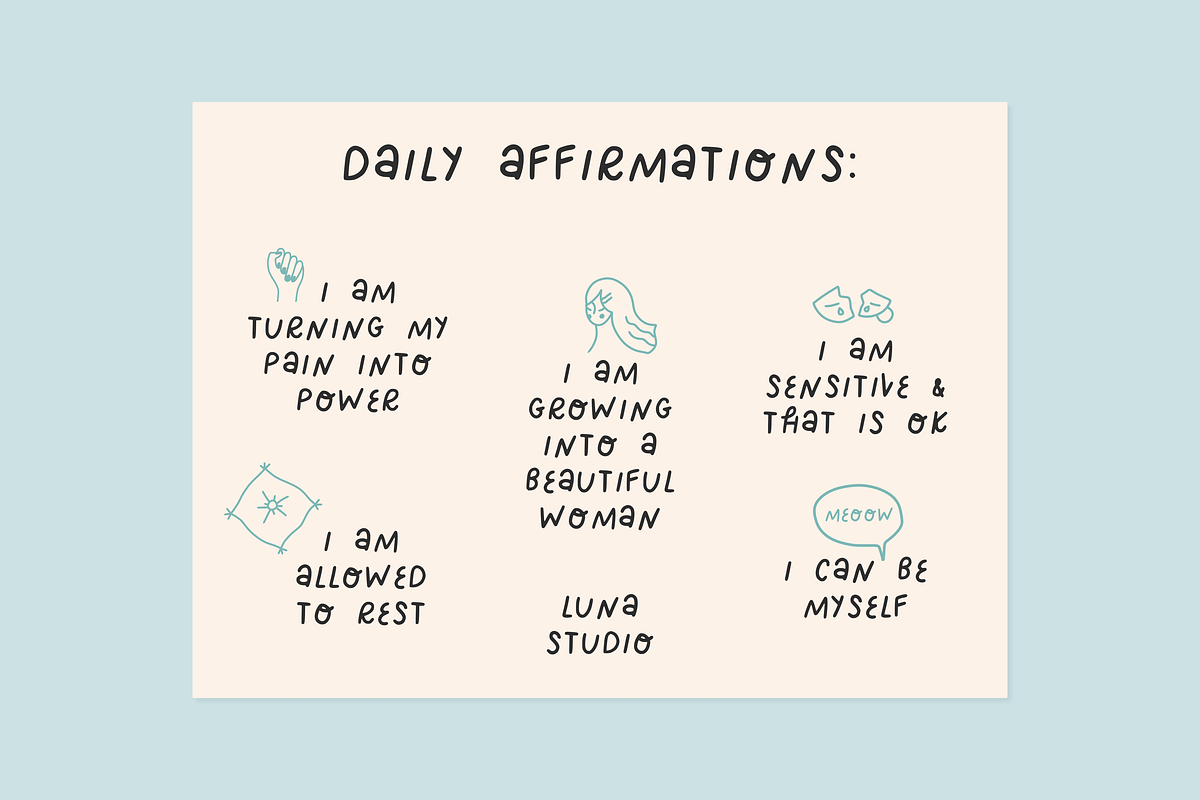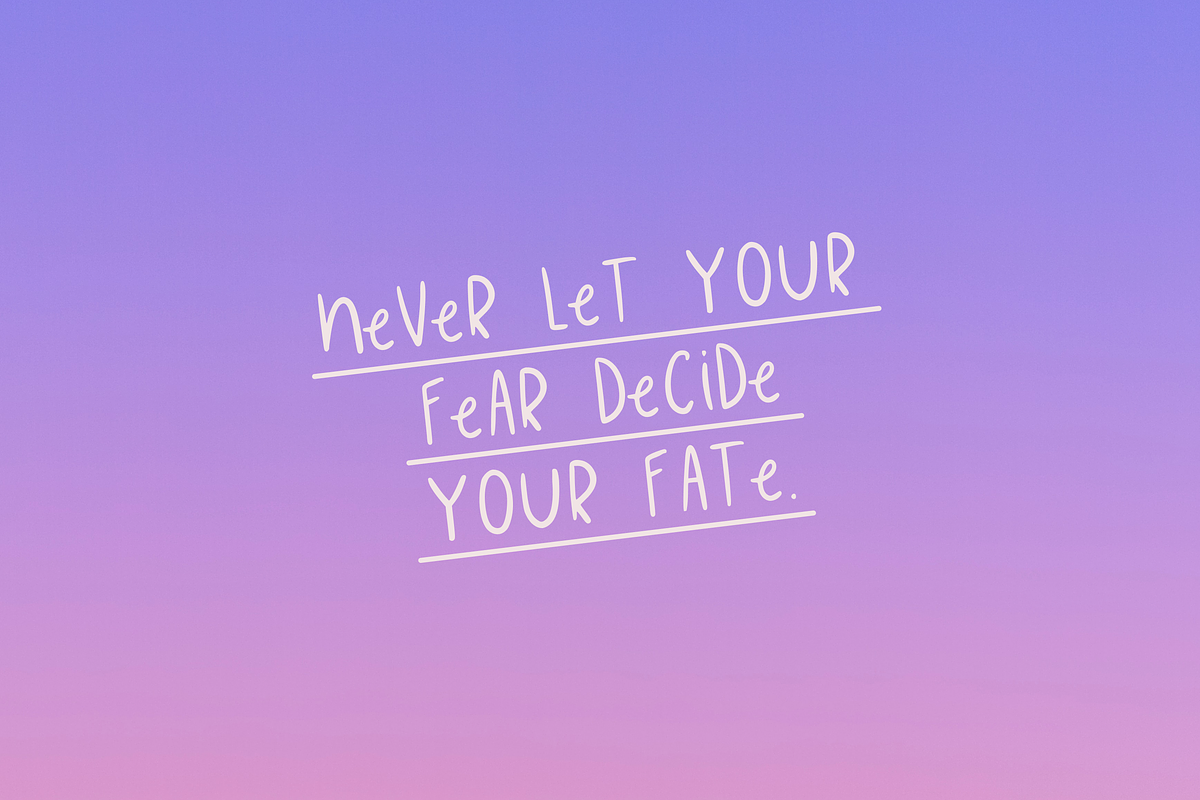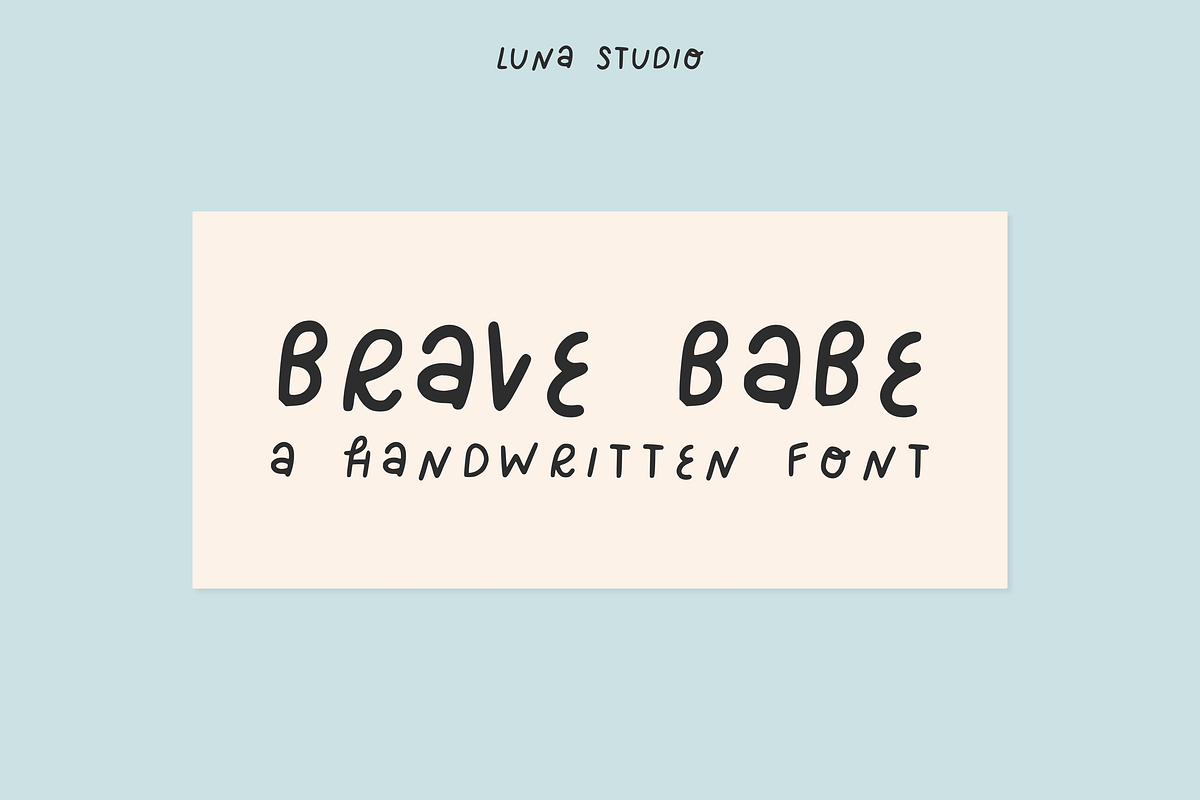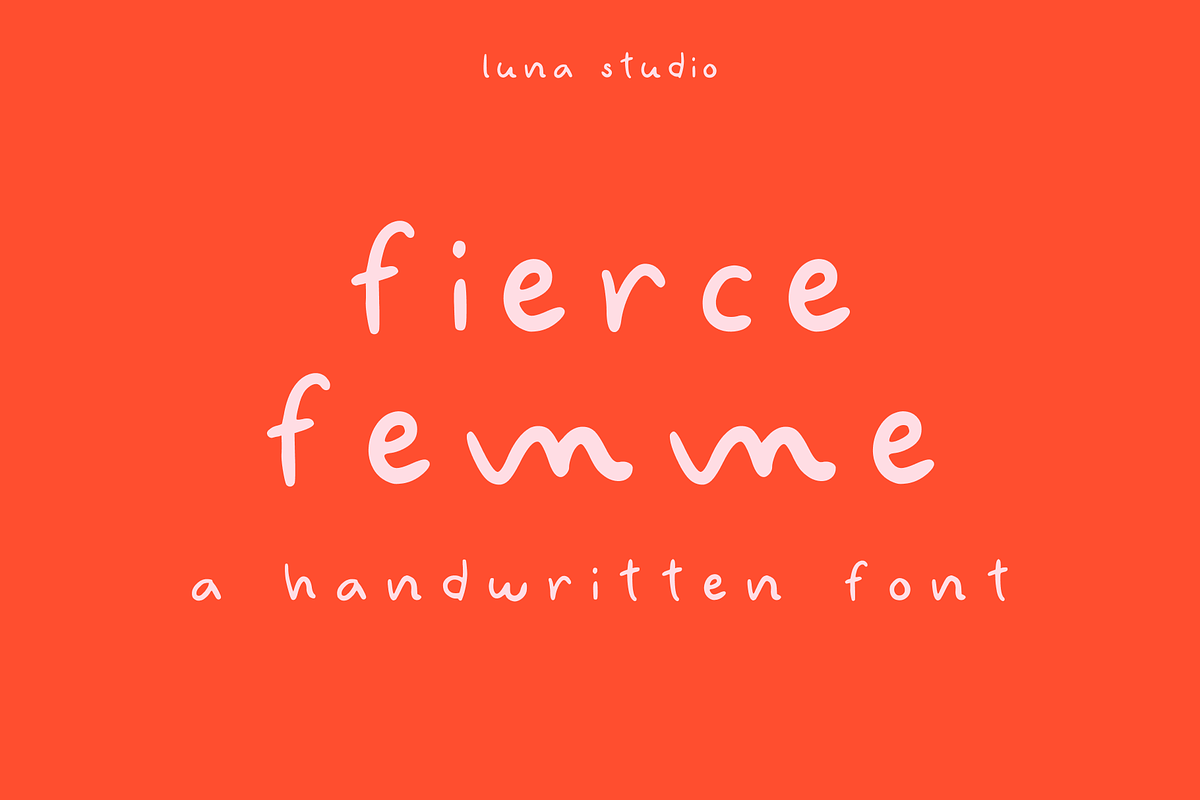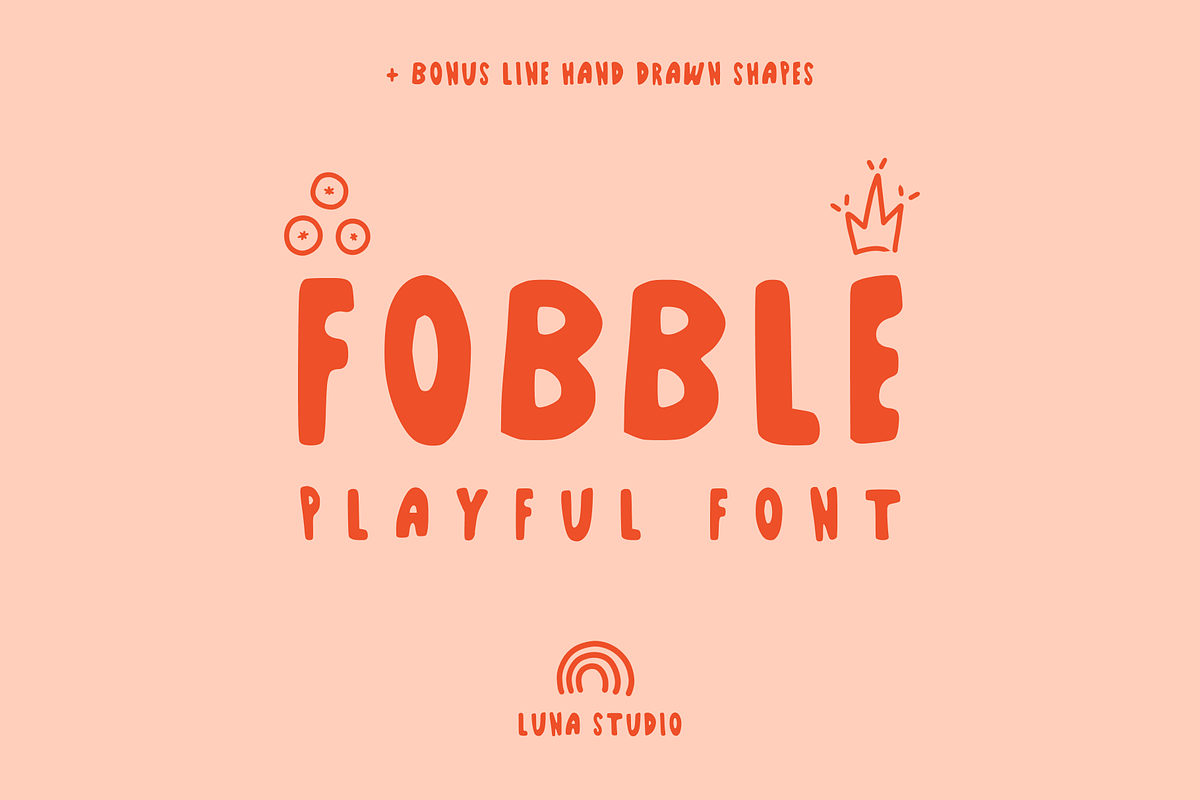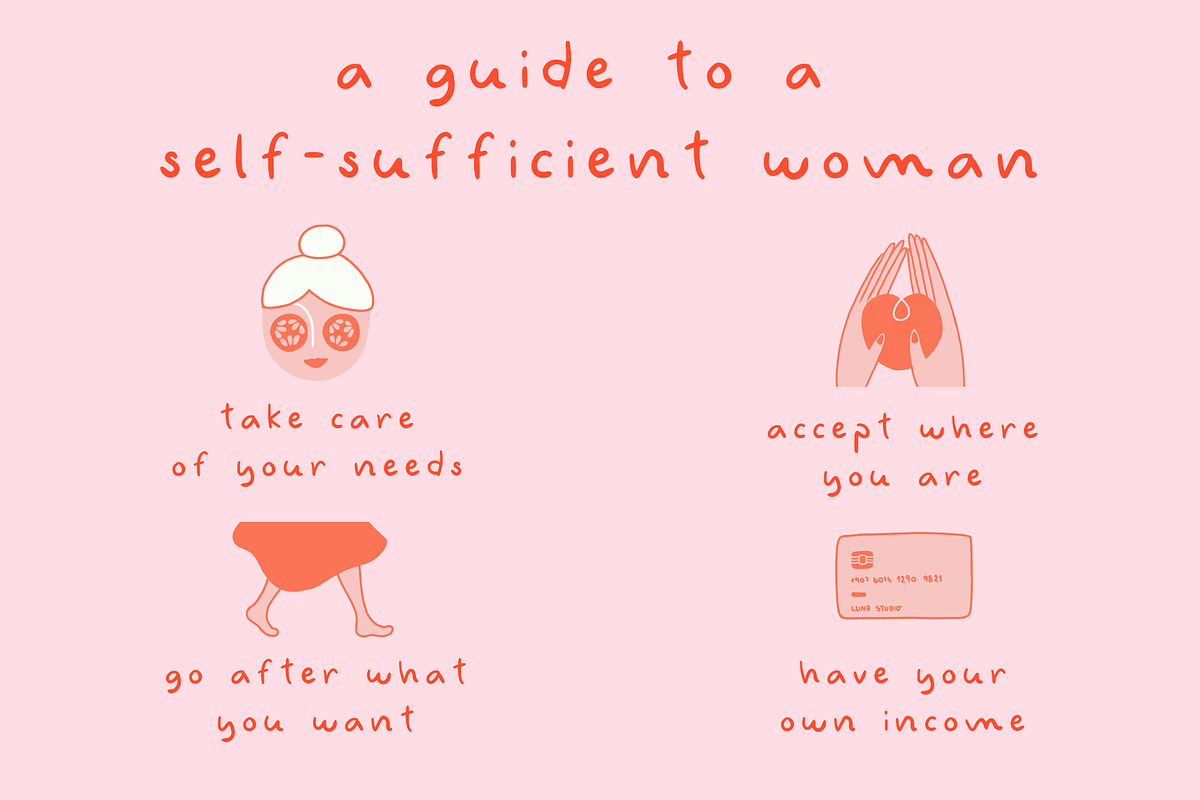
The Cute Handwritten Font Bundle
The cute handwritten font bundle!
Save 60% with this hand-drawn type bundle of 4 fonts:
Perfectly Imperfect Font
+BONUS 15 line drawings